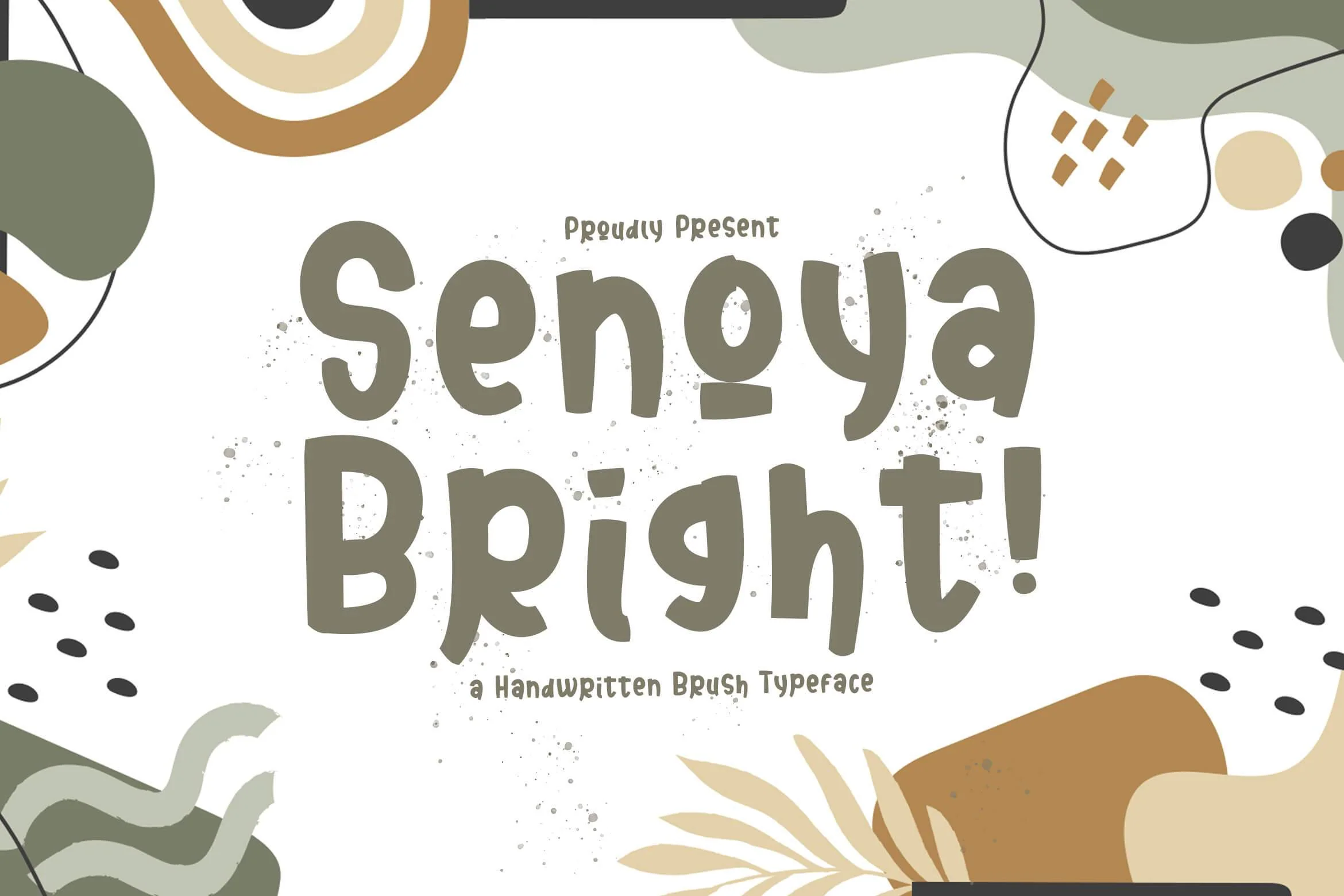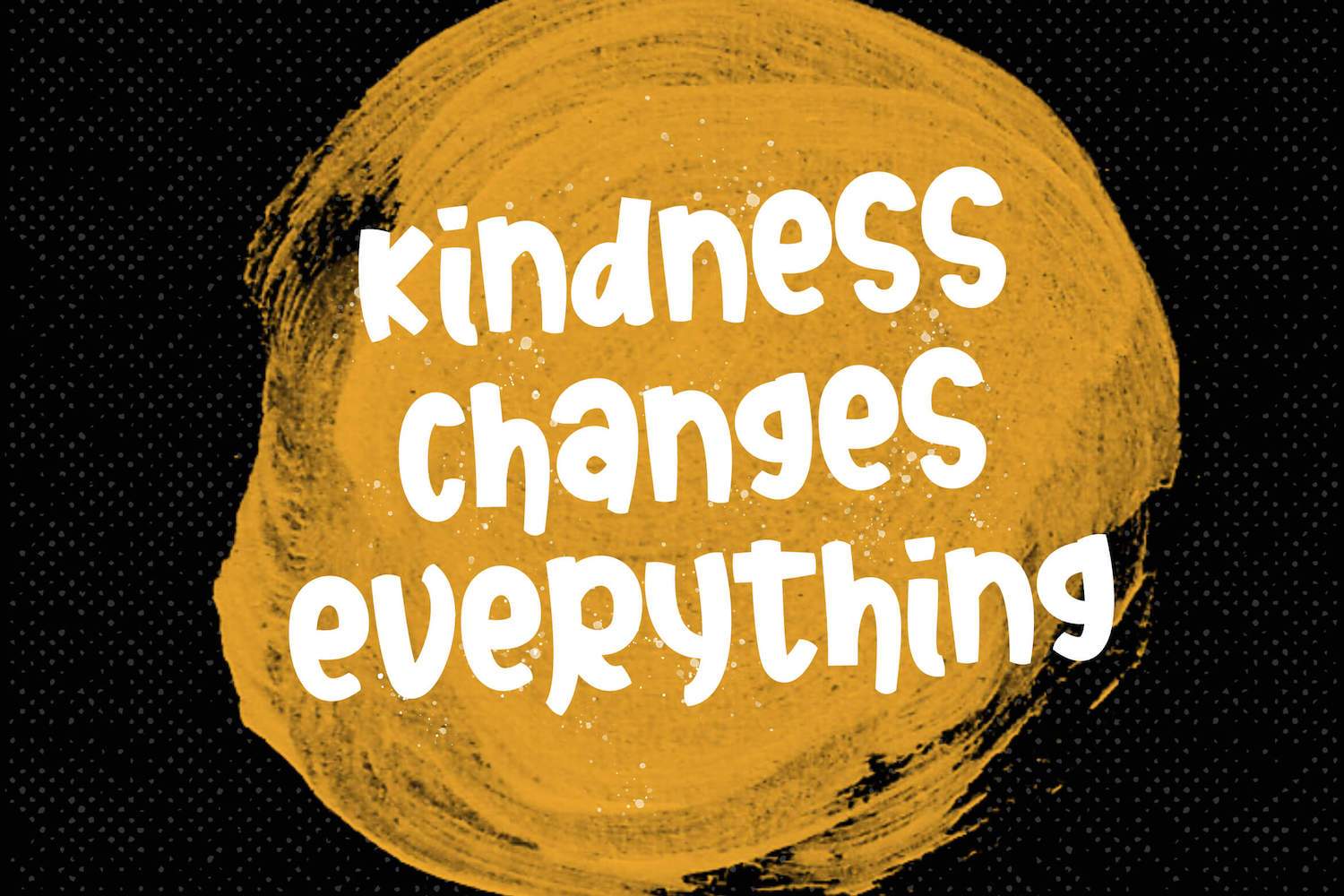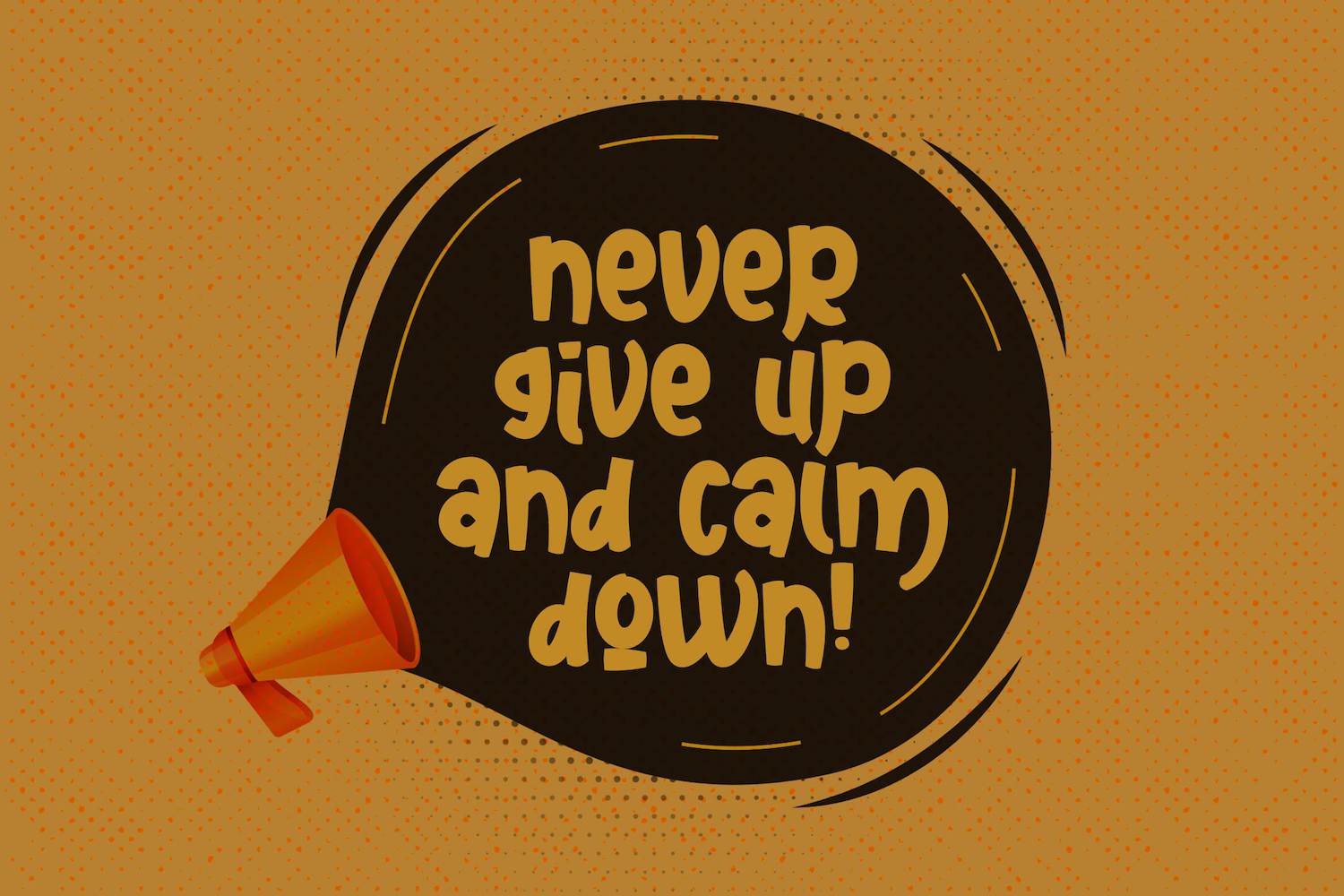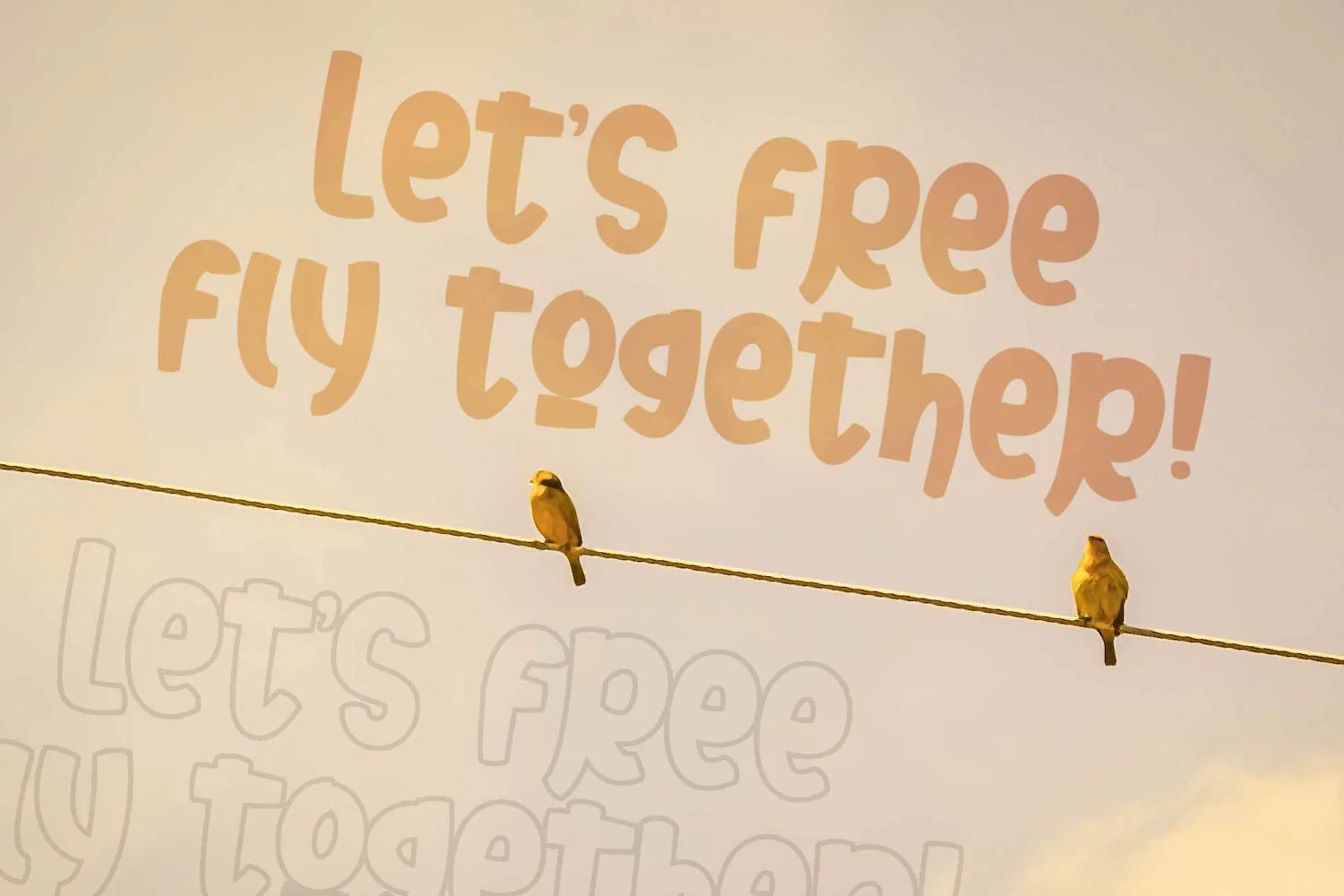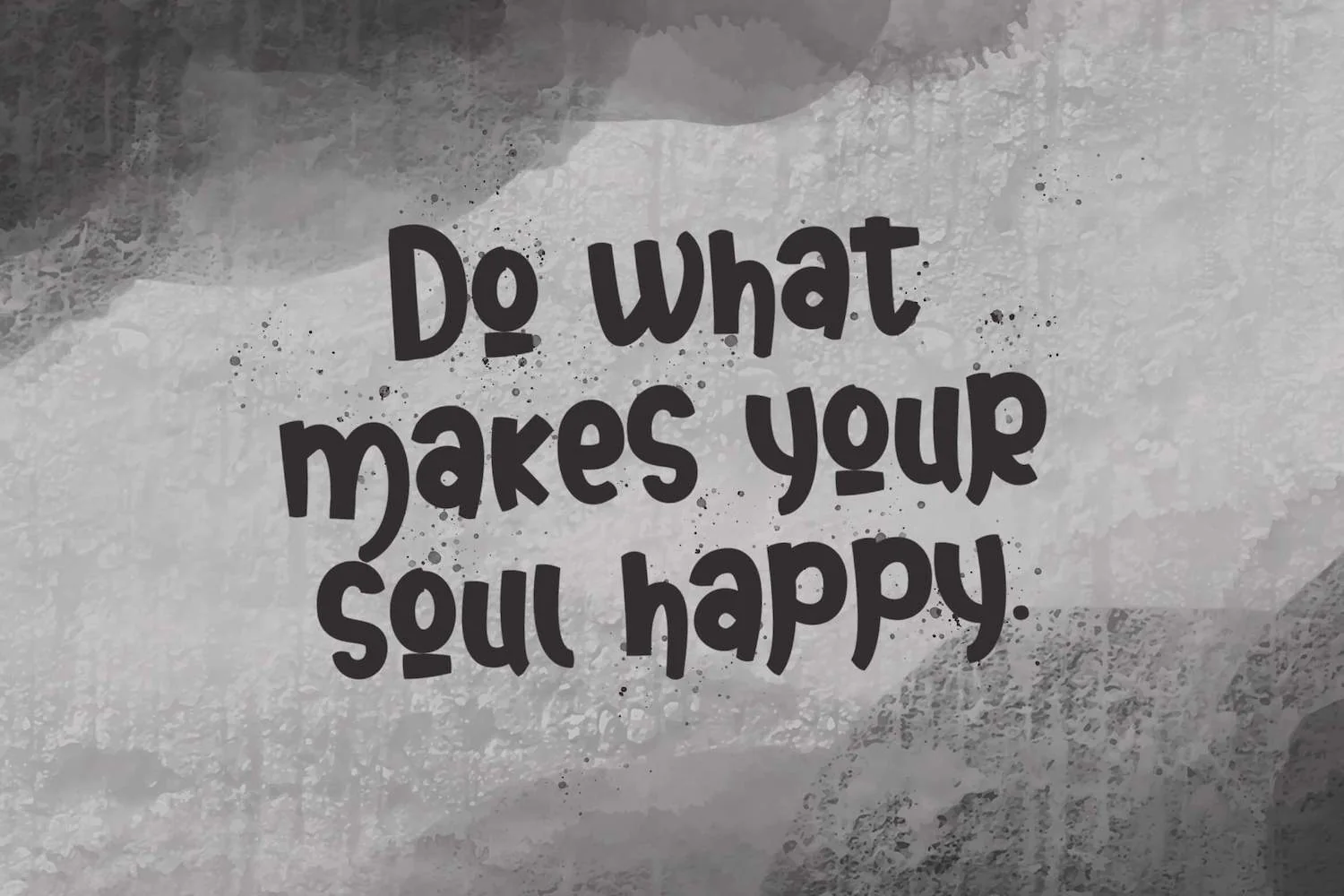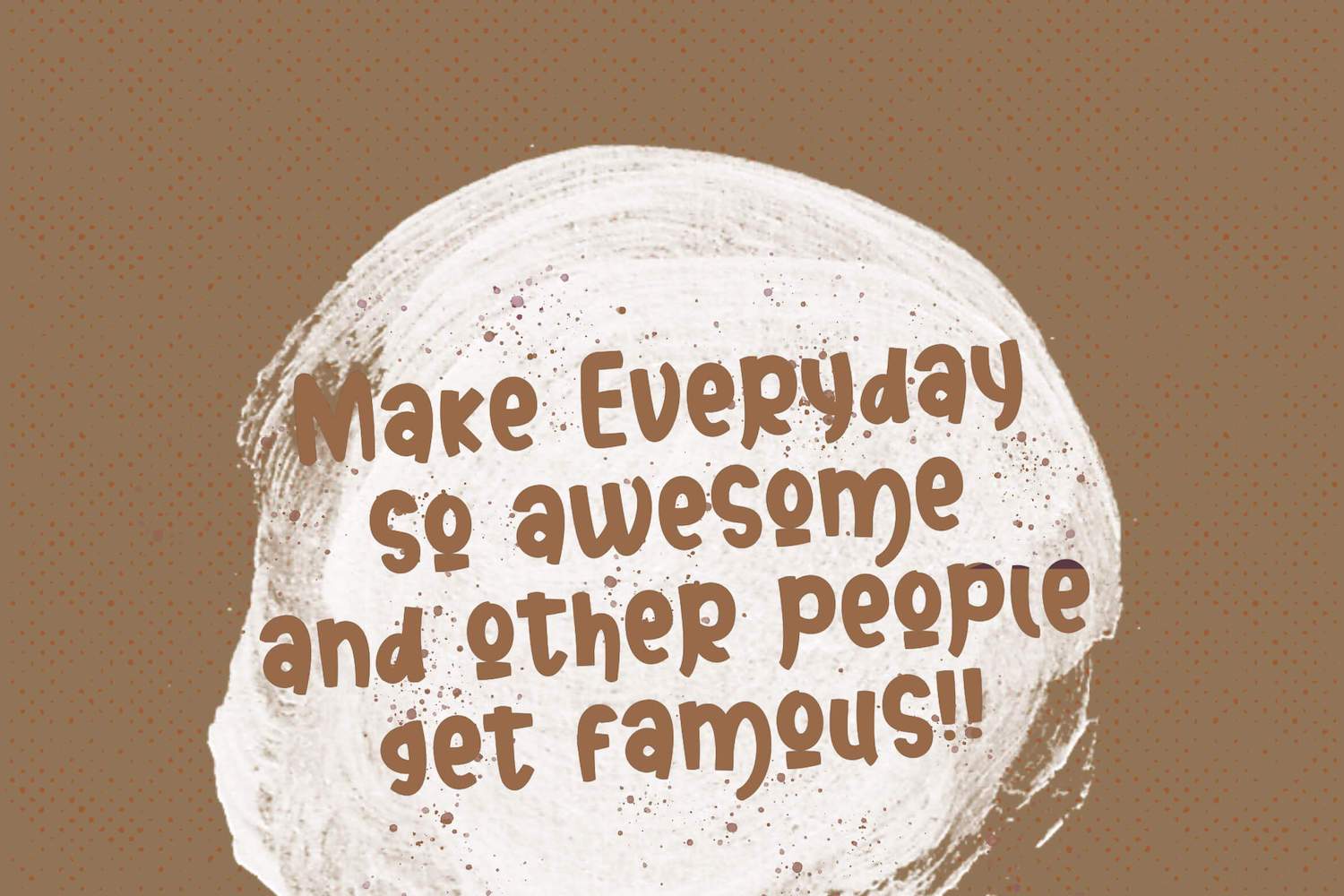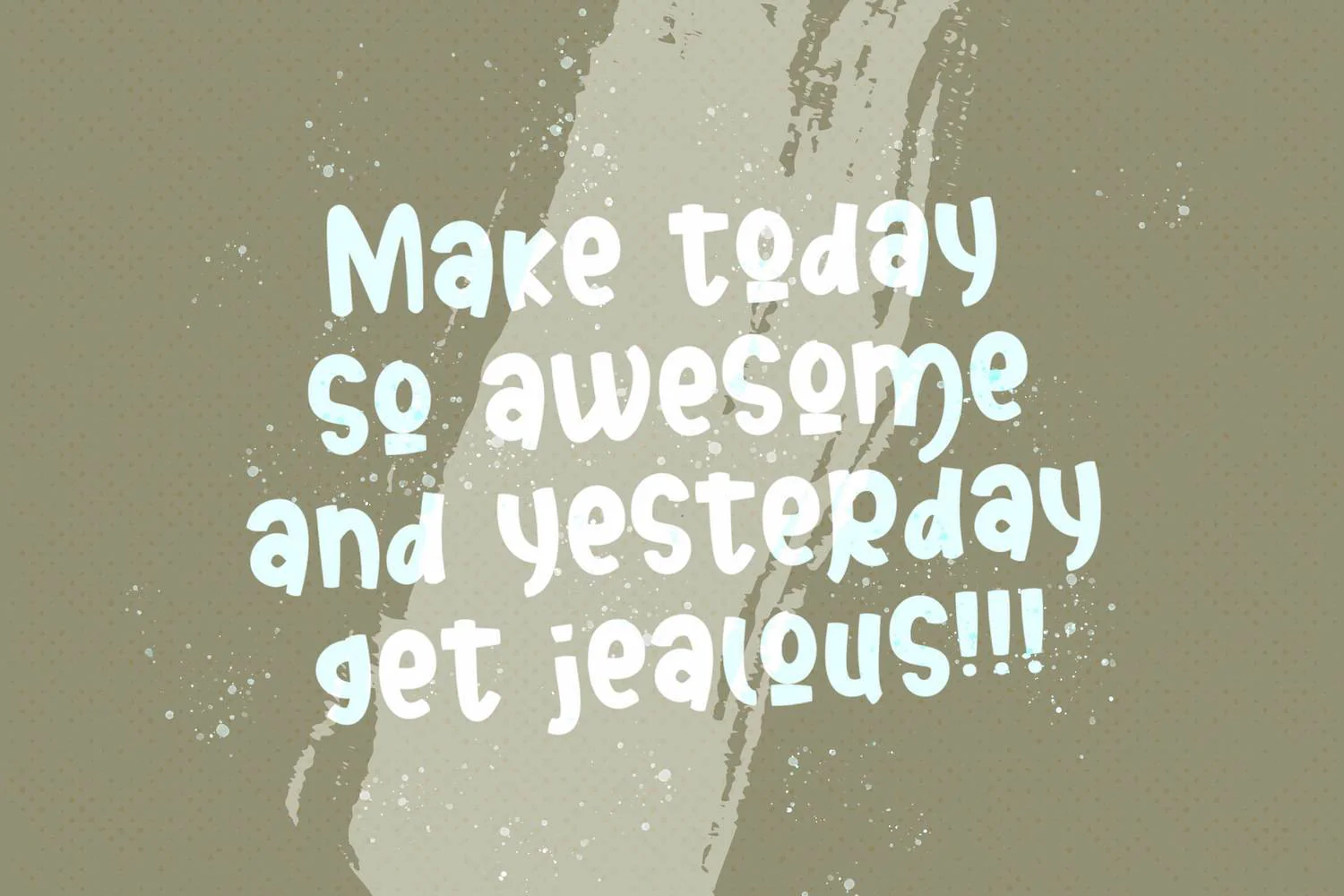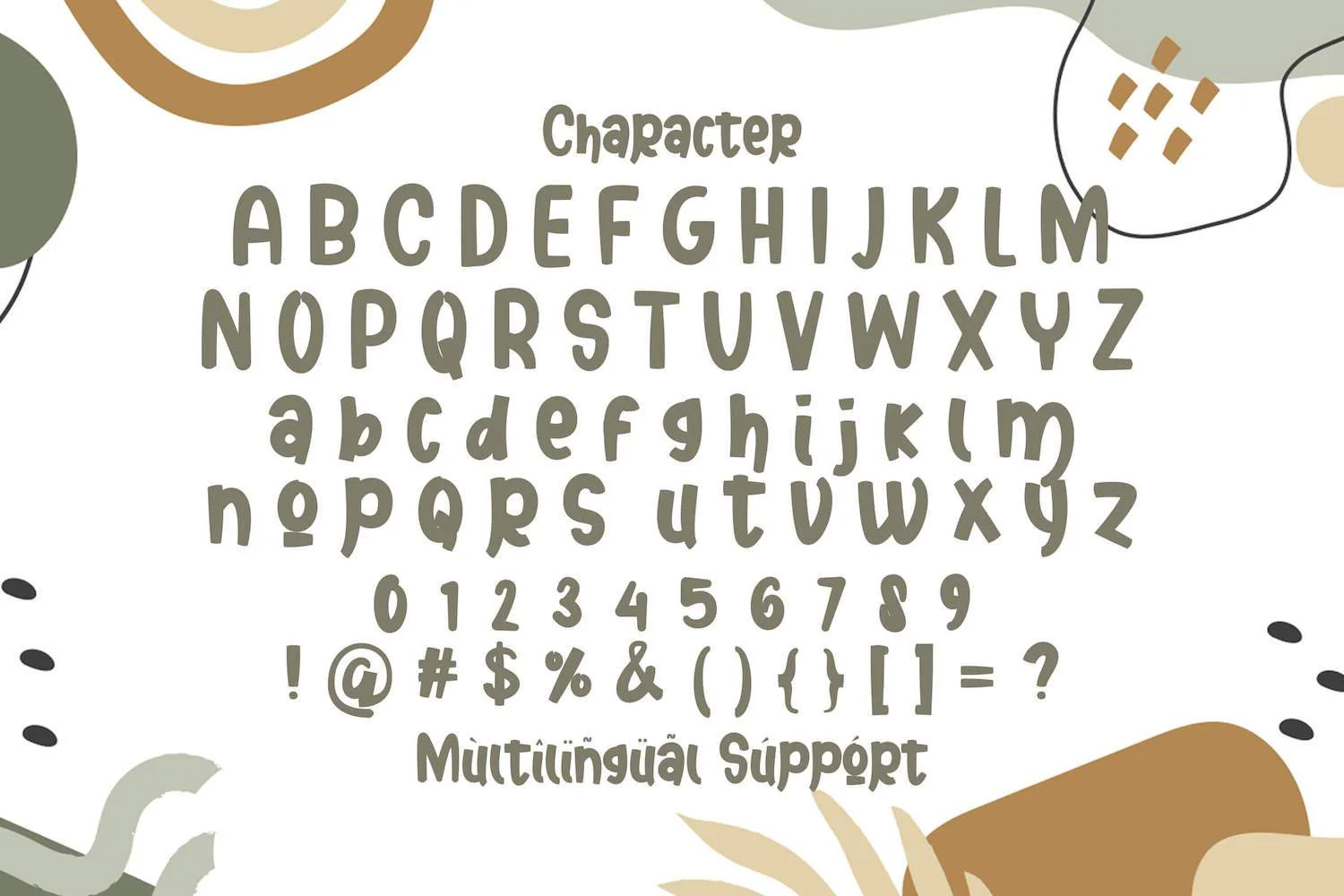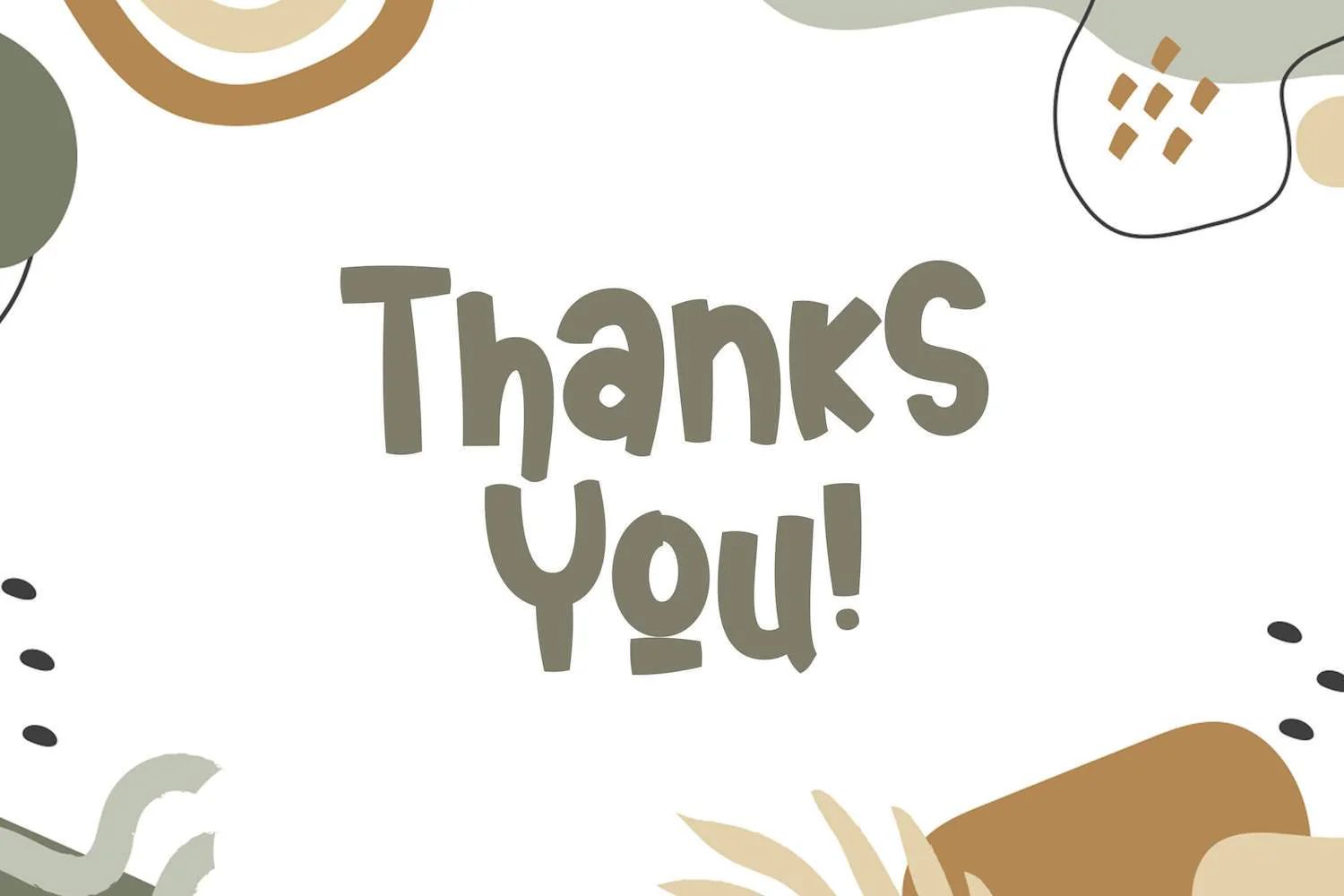
Senoya Bright - Playful Display Font
Introducing Senoya Bright - Playful Display Font
Senoya Bright is a fun handwritten display font. Playful and fresh, this font will be a hit for each of your children or school projects!